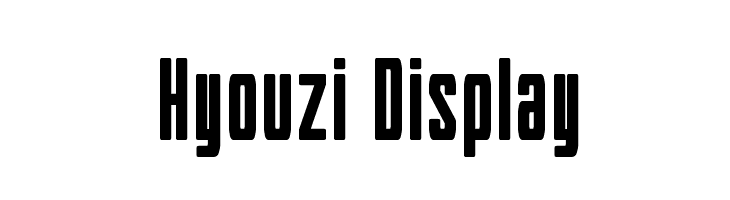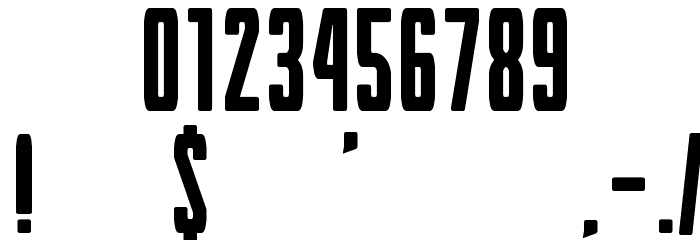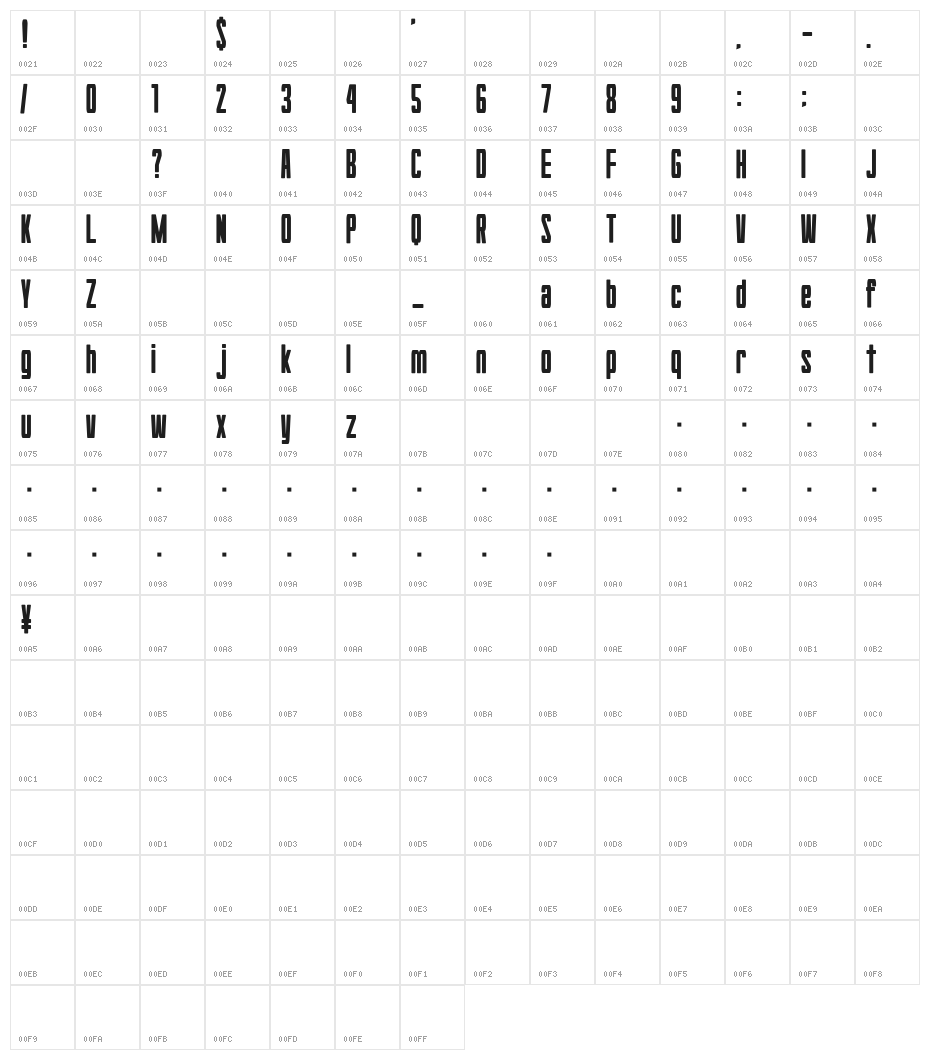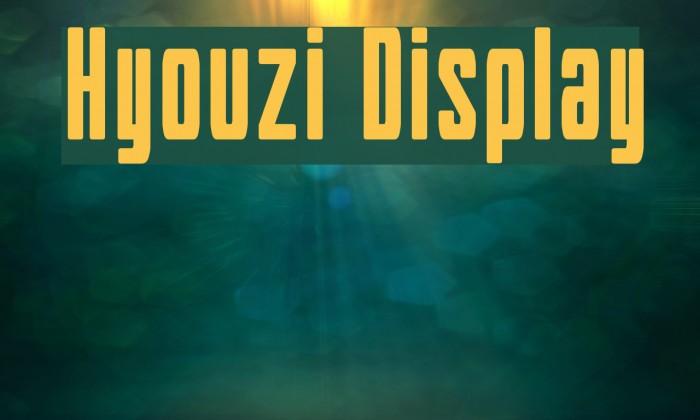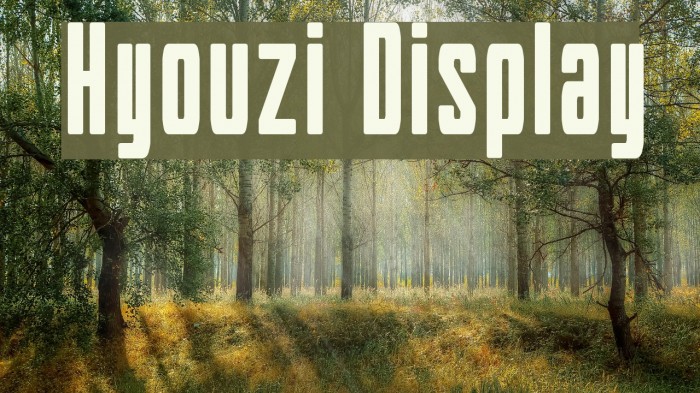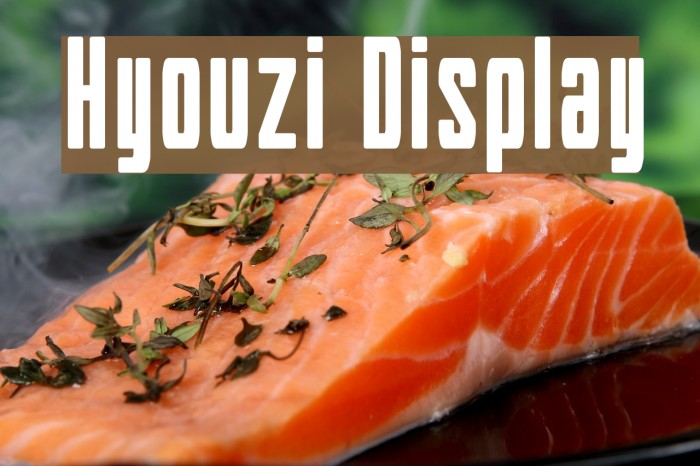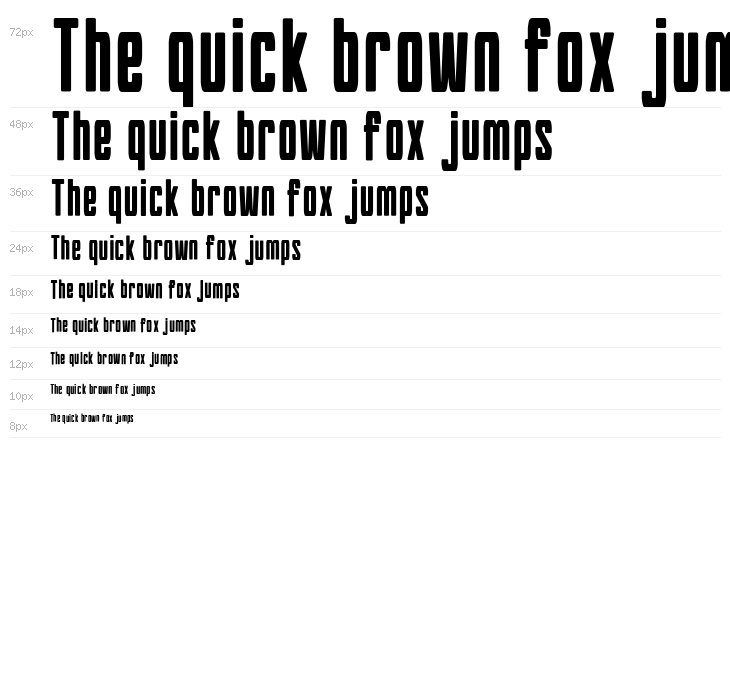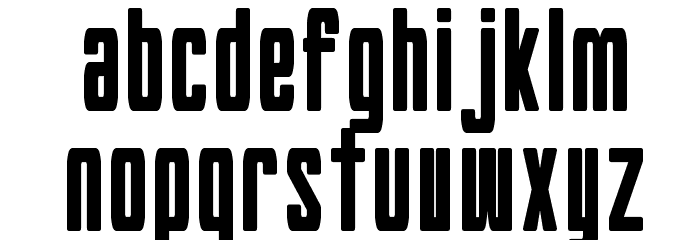
Hyouzi Display Font
Hyouzi Display Description
This font features a bold and striking design with a strong presence. The characters are tall and narrow, giving it a condensed appearance. The uppercase letters are uniform in height, while the lowercase letters maintain a consistent style that complements the uppercase. The numbers are clear and easily distinguishable, making them suitable for various applications. The special characters are designed to match the overall aesthetic, ensuring cohesion across all elements. This font's boldness and unique style make it ideal for attention-grabbing designs.
| Proposed Projects | Ideal for posters, headlines, branding, and any project requiring a bold statement. |